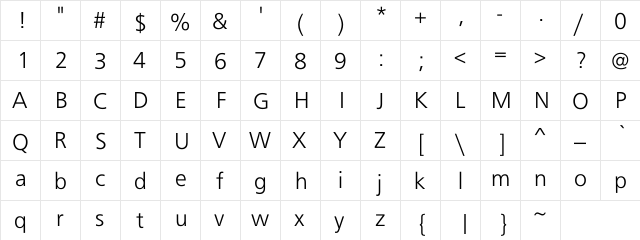
Cadet Sans Light Regular
Design Context for Cadet Sans Light Typeface
Cadet Sans Light offers clean, dependable letterforms without strong stylistic allegiance, making it a practical choice for designers who need flexibility. Its slender proportions lend an understated elegance to any composition.
Pro Tip: Use Cadet Sans Light in both headline and body roles to test its range before committing to a single application.